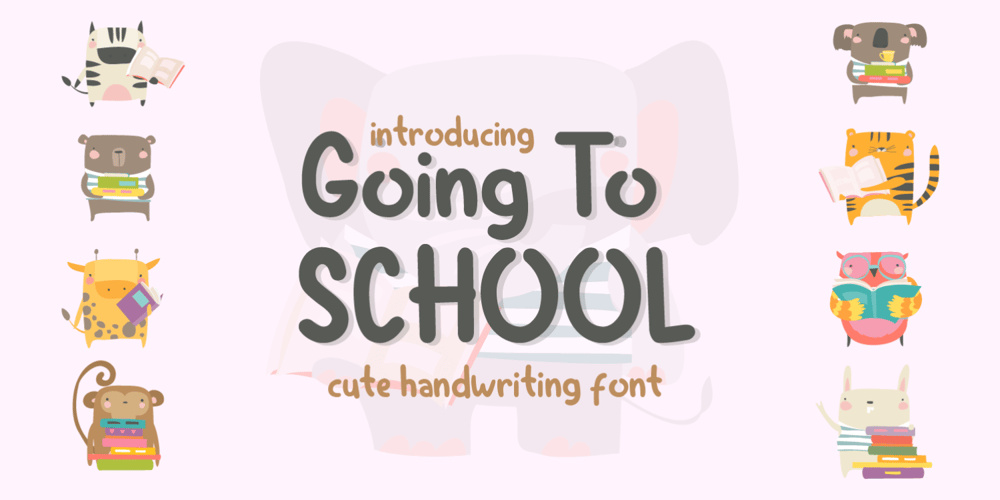
Going to School Font Family was designed by Miftahul Habib and published by Tlatous Type. Going to School contains 1 styles and family package options. Introducing Going to School Font by TlatoustypeGoing to School is a Fun Modern Handwritten Font.Going to School is perfect for Book Cover, product packaging, branding project, megazine, social media, wedding, or just used to express words above the background. Going to School also multilingual support.